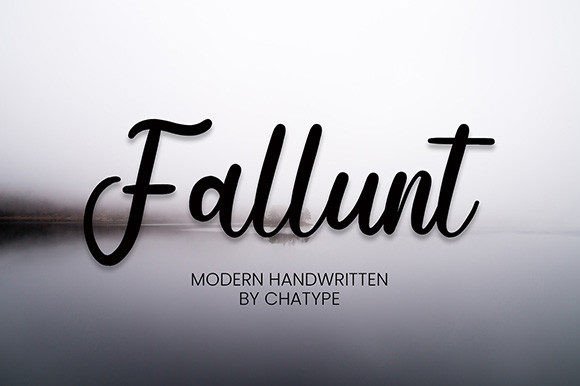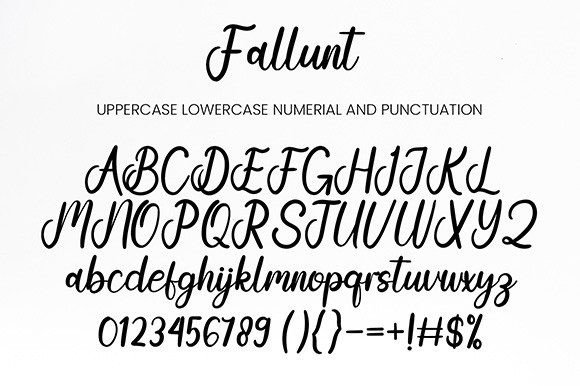
Fallunt Font
About Fallunt Font
Fallunt Font Download introduces a stylish, modern handwritten typeface designed to elevate a wide range of creative projects. With its smooth, flowing strokes and versatile structure, Fallunt is the perfect blend of casual charm and design professionalism.
Whether you’re crafting logos, inspirational quotes, or fashion branding, Fallunt delivers a natural handwriting vibe that’s effortlessly elegant. Its balanced design ensures readability, while its distinct personality adds visual interest to every letter.
Elegant, Modern, and Built for Versatility
Fallunt is a font that adapts to your creativity. It combines the sophistication of script fonts with the fun, casual feel of handwritten letterforms. The result? A typeface that feels fresh yet timeless.
Its stylish curves and fluid lines give your text a appearance while a handmadefeel.
Make Every Word Count
One of Fallunt’s standout features is its ability to convey emotion through form. Each stroke carries a sense of rhythm and spontaneity, making your message feel more human and engaging. Whether you’re designing for digital media or printed materials, Fallunt adds a unique voice to your visual storytelling.
Use it solo for bold typographic statements or pair it with minimalist sans-serif fonts for contrast and harmony in layouts.